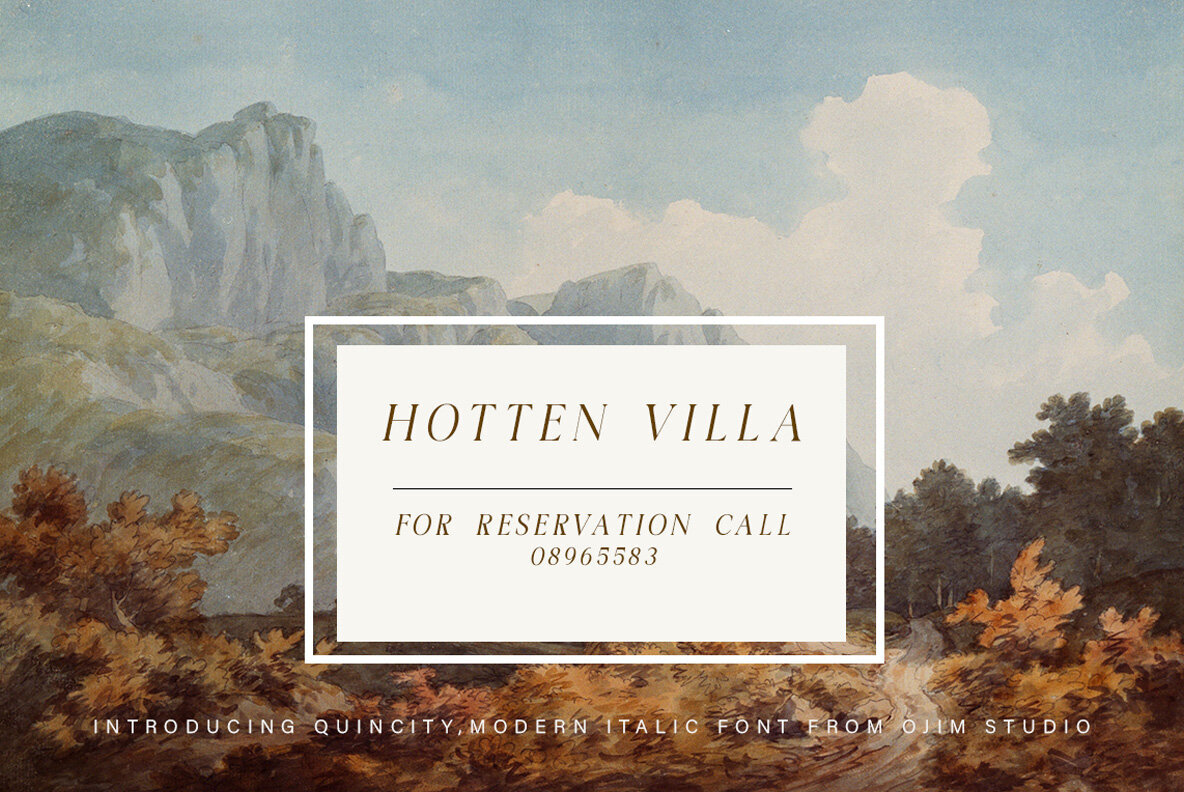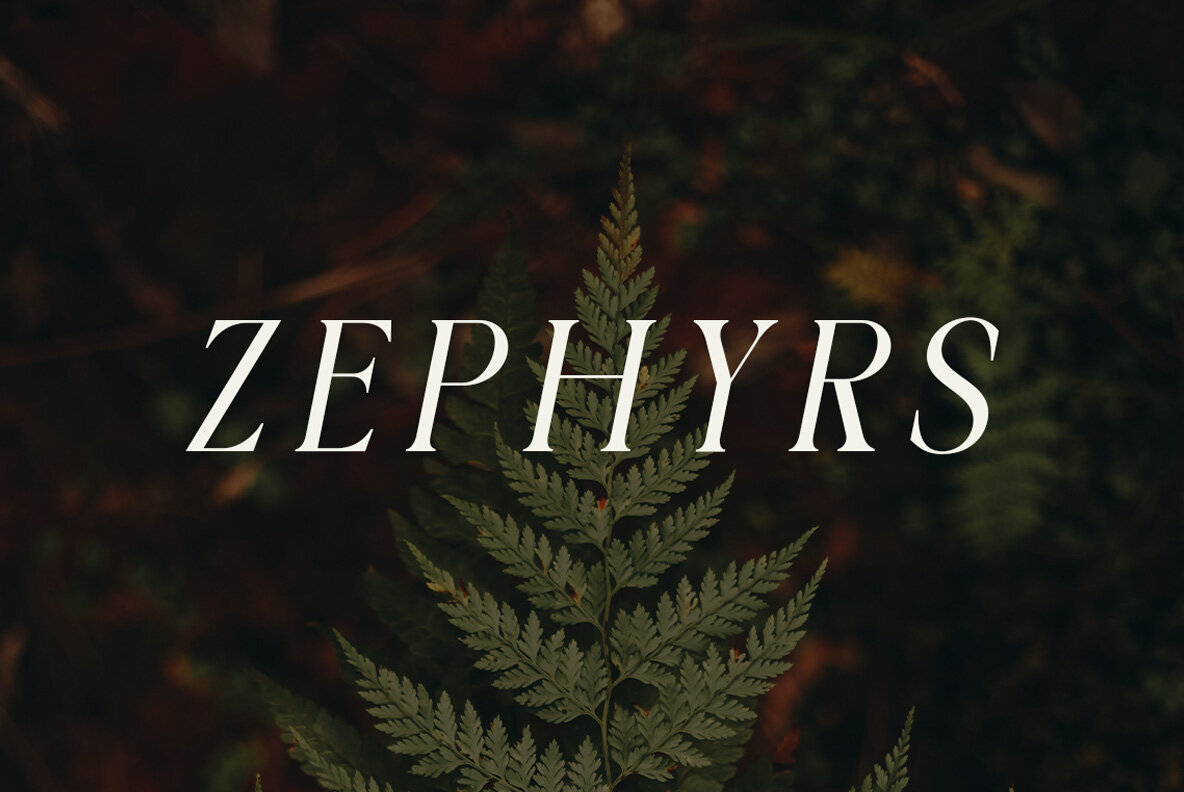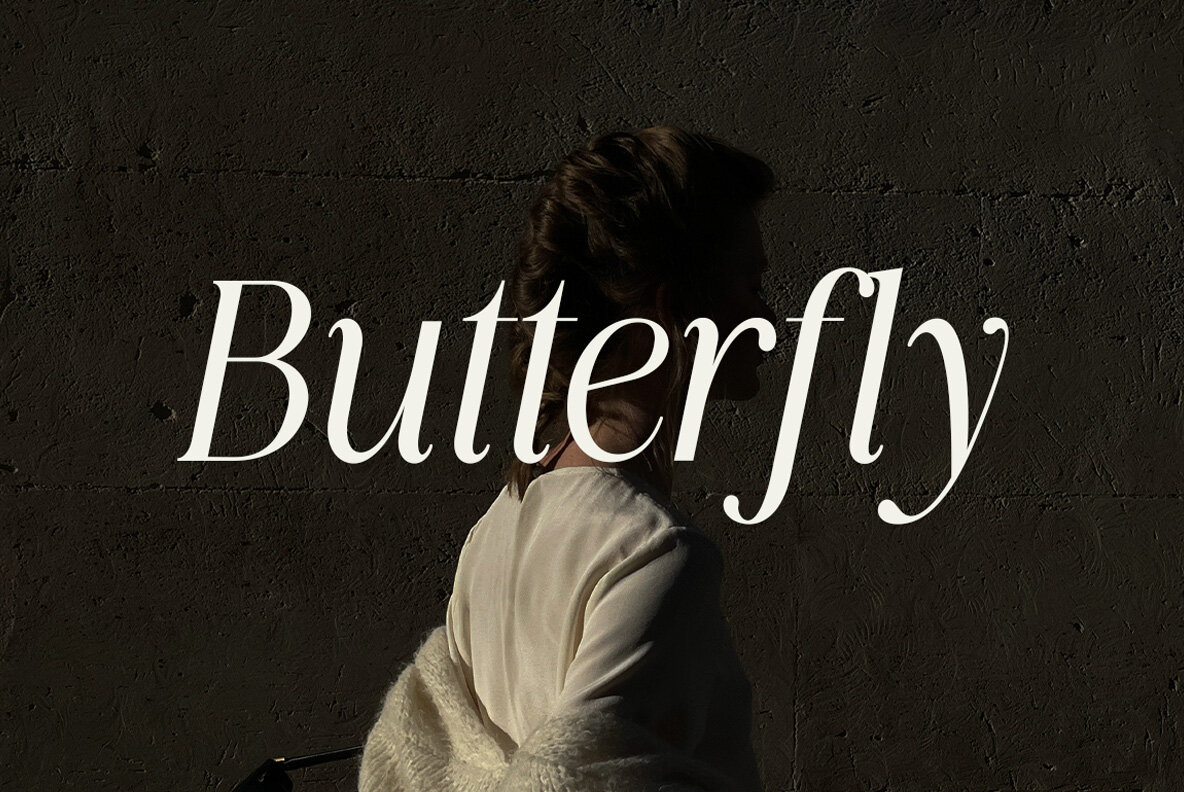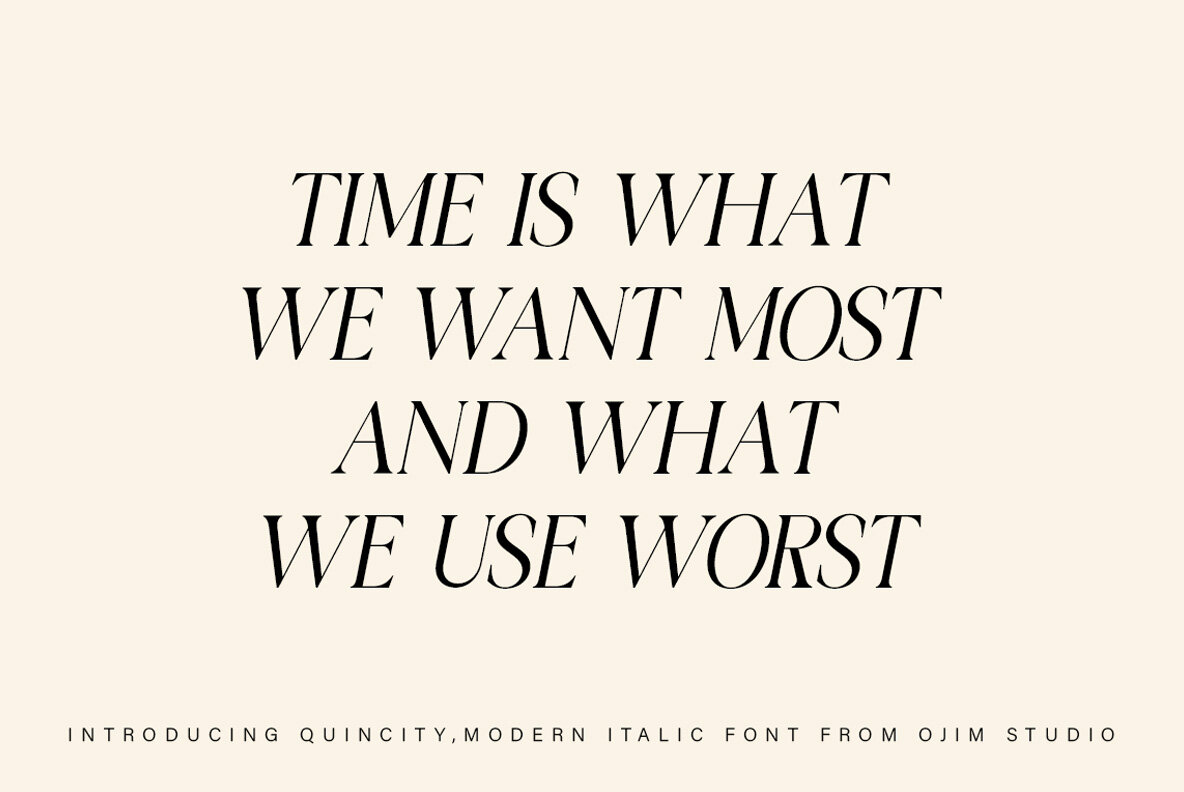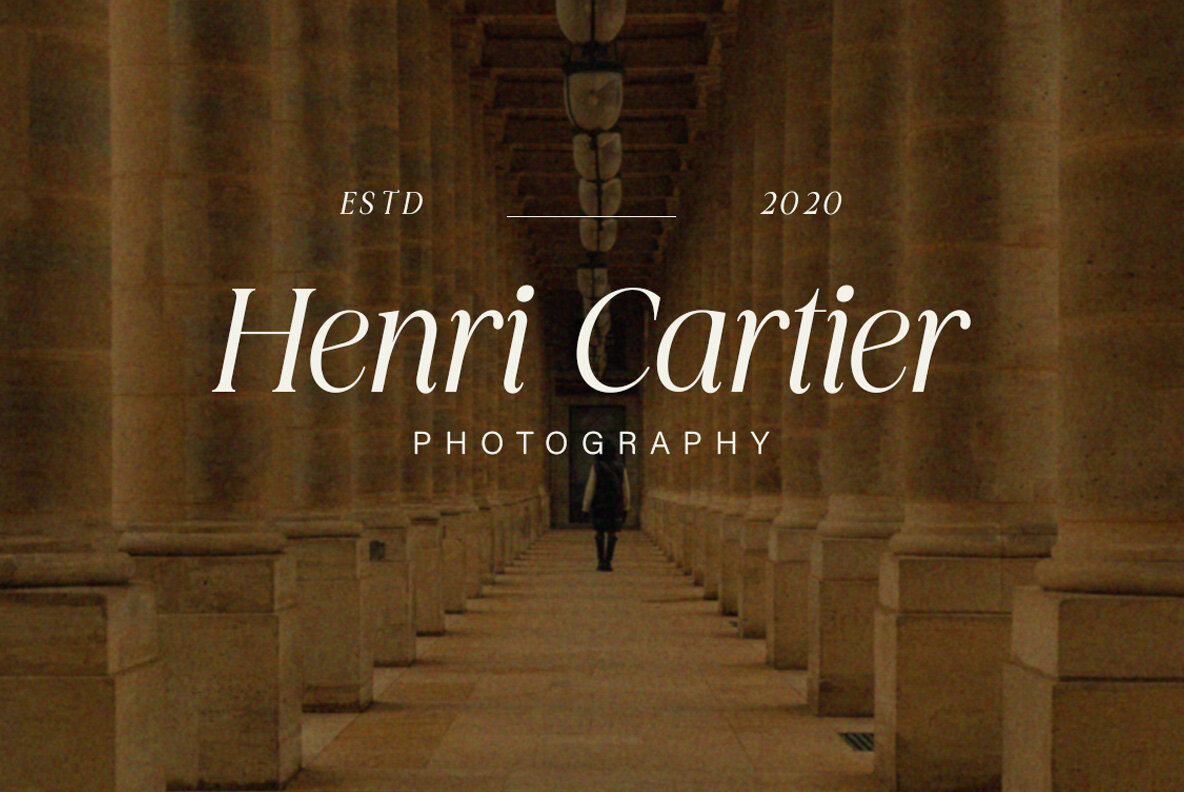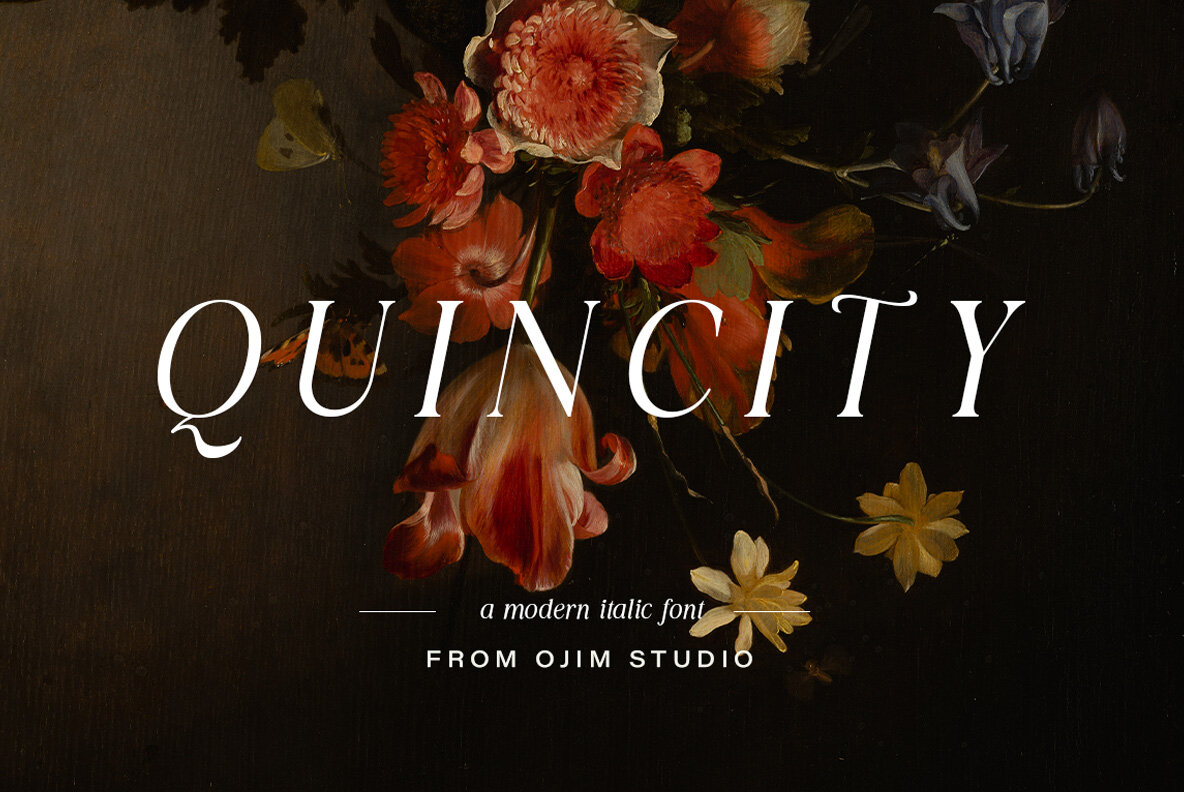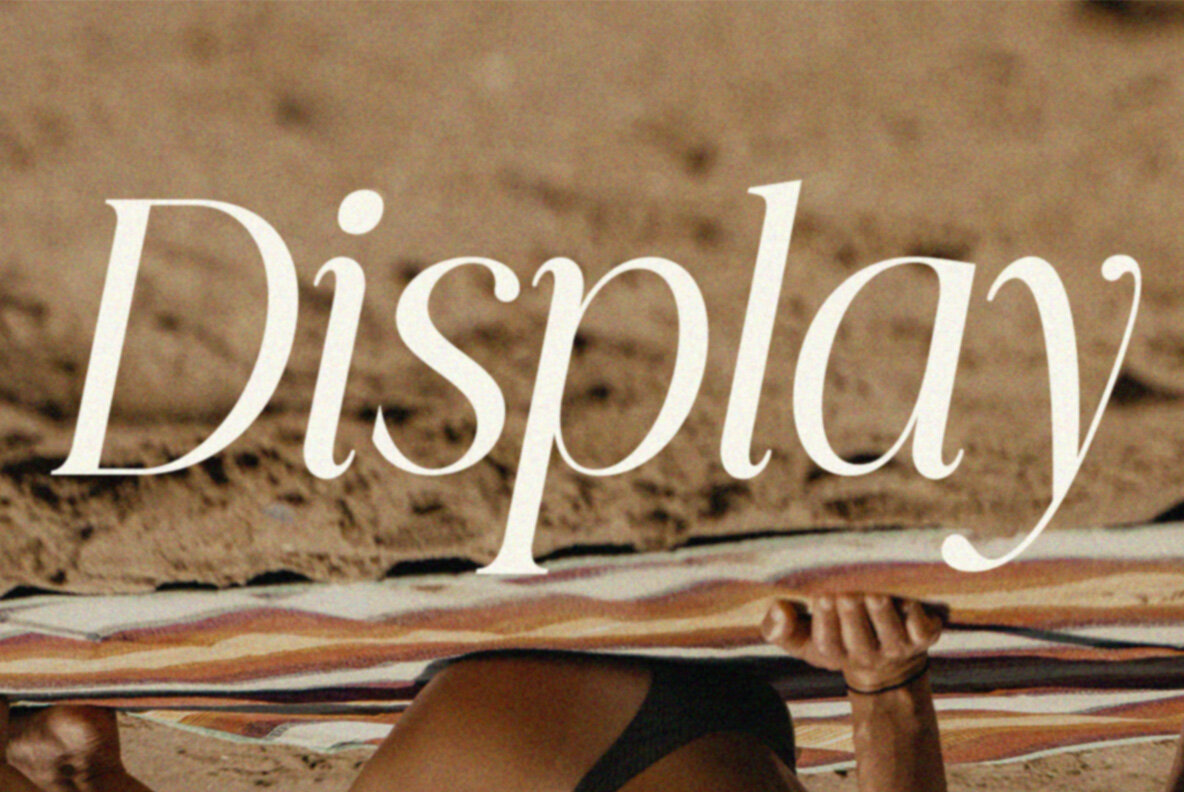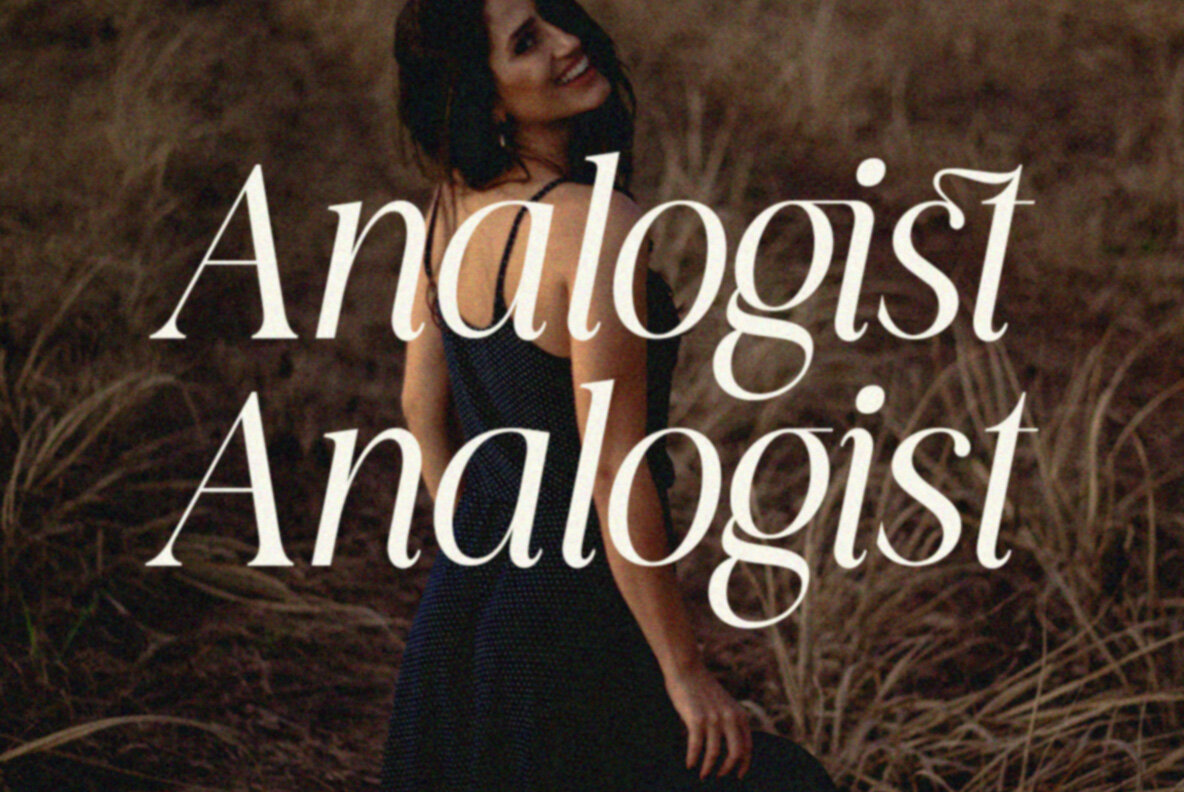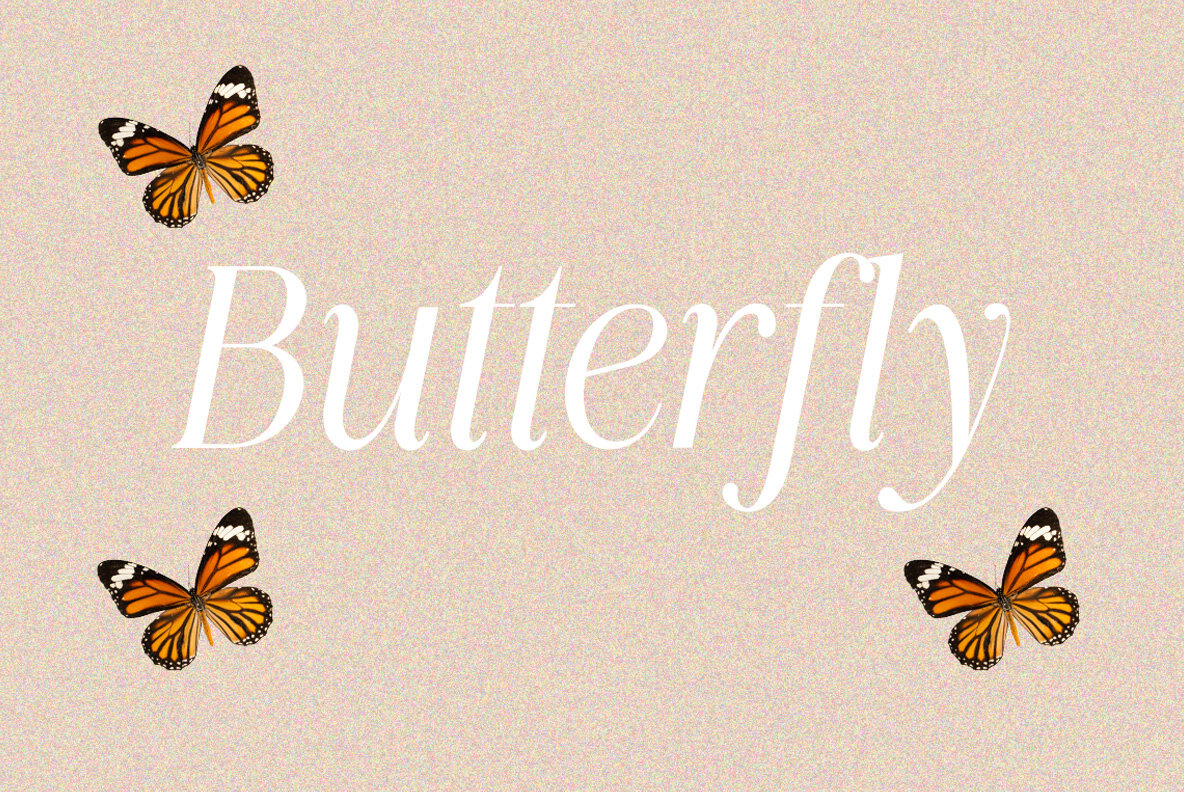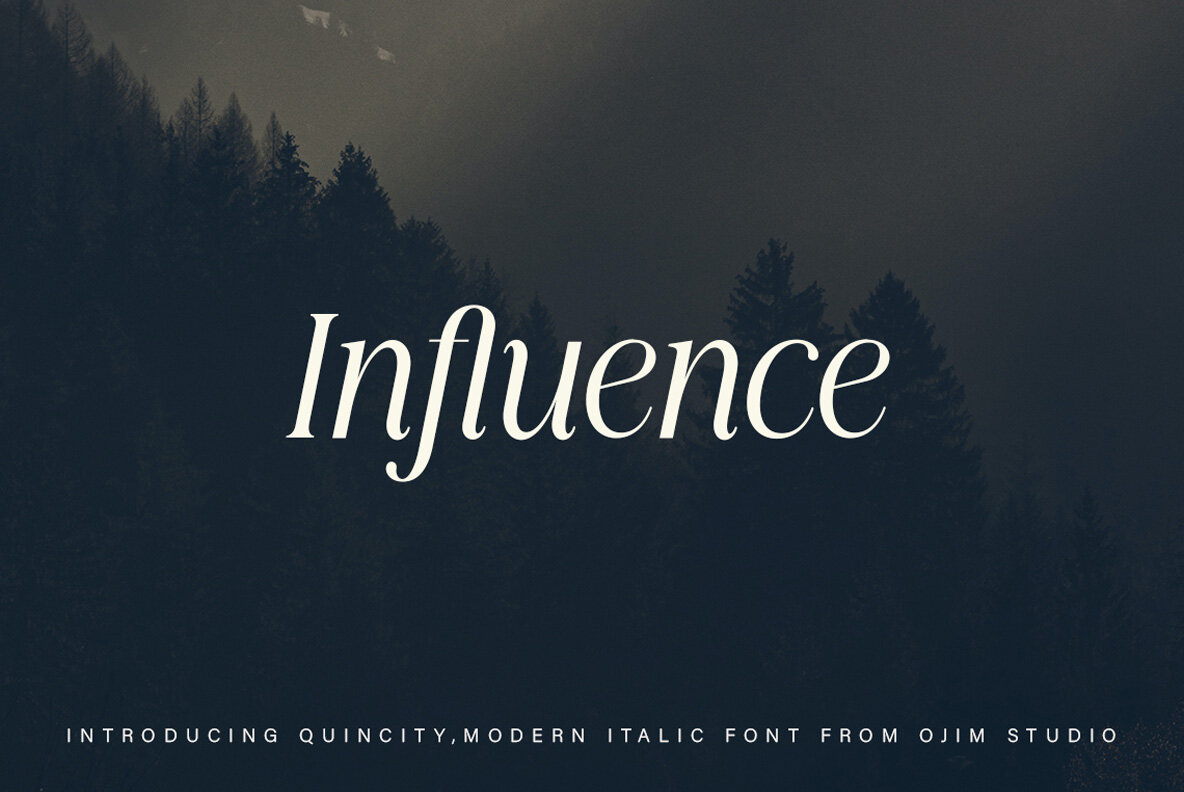
Quincity Font
QUINCITY Italic
Quincity is a captivating italic-only transitional serif typeface inspired by a few elegant paragraphs of italic text found on a 1798 type specimen broadside. This type revival project has offered a unique opportunity to explore type history and classification, integrating a selection of historical characters into the design.Quincity: A Distinct Italic-Only Transitional Serif Font